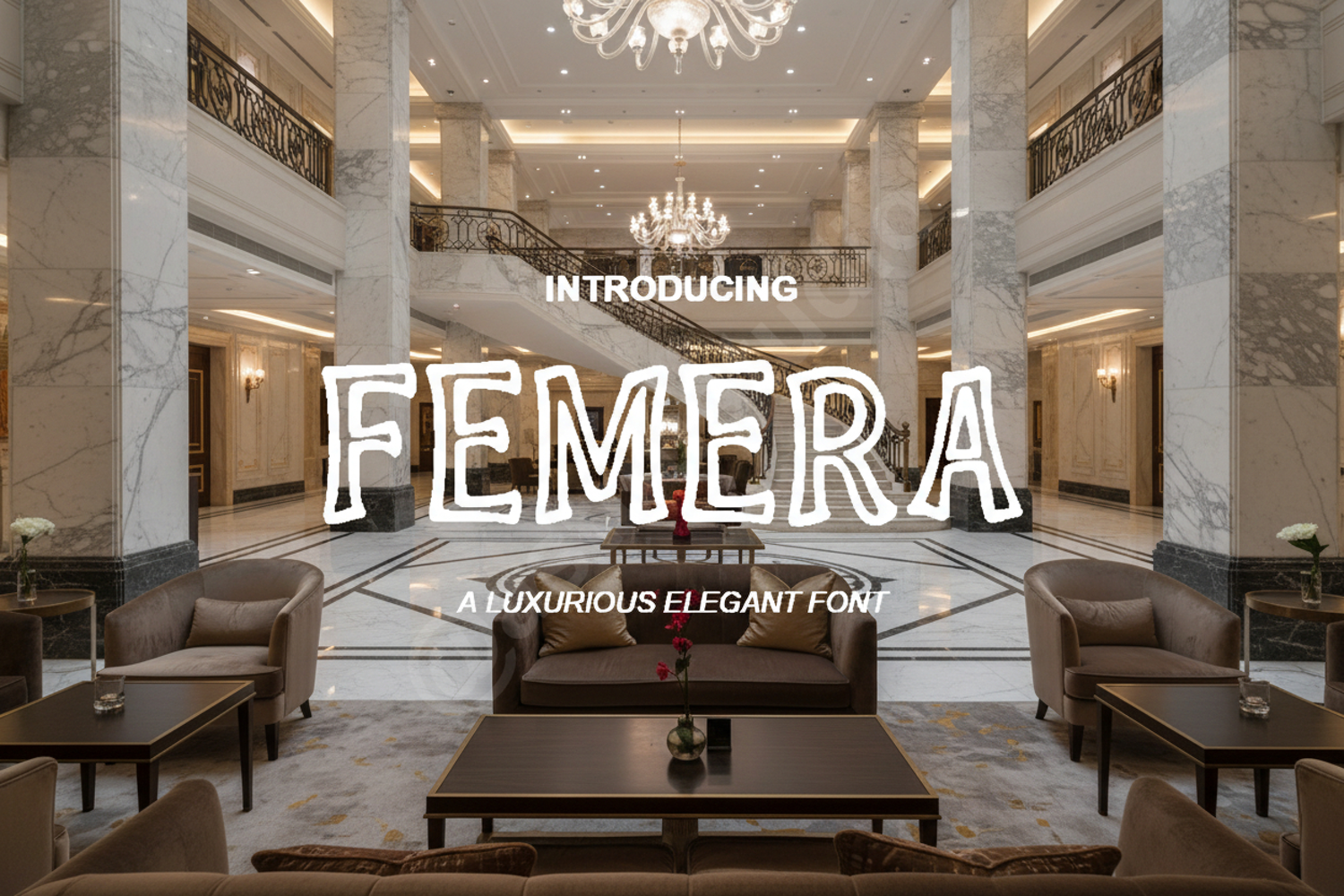
Femera - Elegant Modern Serif Typeface
Femera
Femera is a premium serif font that exudes sophistication and timeless elegance. Carefully crafted with clean lines and balanced proportions, Femera is designed to bring a touch of luxury to your creative projects. Whether you are working on high-end branding or minimalist editorial layouts, this font offers the versatility and professional polish required for modern design standards.
- Full set of uppercase and lowercase letters
- Numerals and punctuation
- Standard ligatures for seamless character flow
- Multilingual support for global design accessibility
- Luxury Branding: Create high-end visual identities for fashion and lifestyle brands.
- Editorial Design: Perfect for magazine headers, book covers, and layout body text.
- Wedding Invitations: Add a sophisticated touch to stationery and event signage.
- Logo Design: Build memorable and professional logos with a classic serif feel.
- Social Media Graphics: Elevate your digital presence with clean and aesthetic typography.